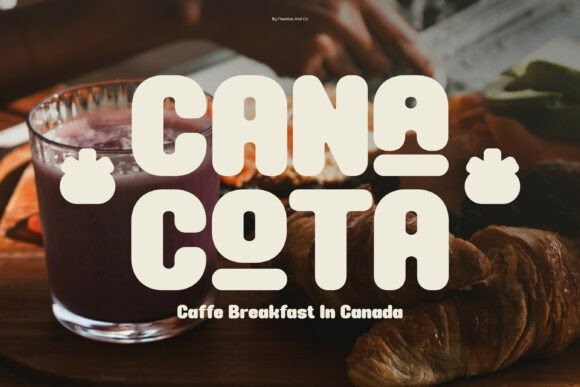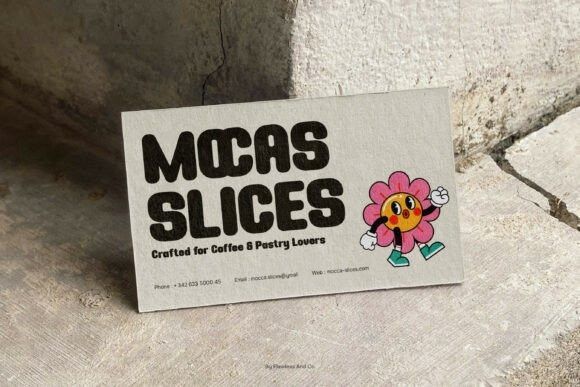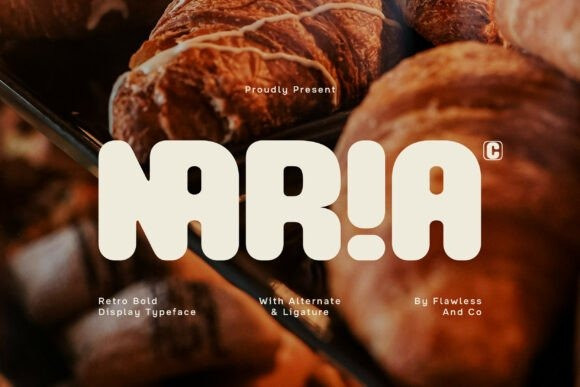
Naria Font
Naria Font is a retro bold display typeface that blends vintage character with a strong and modern presence. Featuring thick strokes, distinctive shapes, and eye-catching details, Naria brings a nostalgic feel inspired by classic retro styles while staying fresh and relevant for today’s designs.